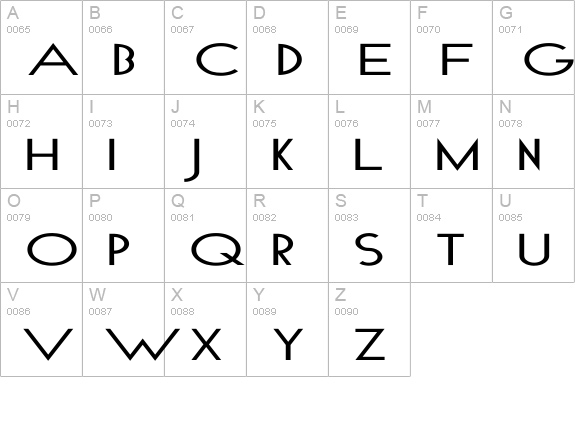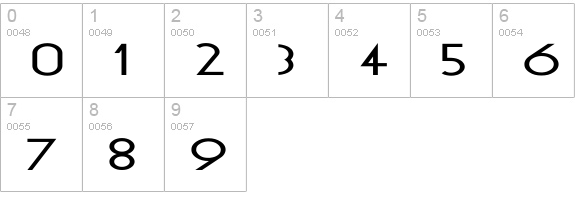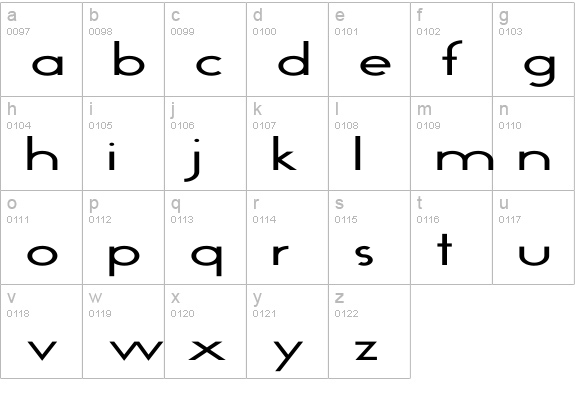
GeoPlain Ex Font Details
GeoPlain Ex is a modern and versatile sans-serif font that is perfect for a wide range of design projects. With its clean lines and geometric shapes, this font exudes a sense of professionalism and sophistication. Its bold and easy-to-read characters make it ideal for headlines, branding, and other display purposes. GeoPlain Ex is available in a variety of weights and styles, giving you plenty of options to choose from. The best part? GeoPlain Ex is completely free to download at FontsMarket.com. This means you can access this high-quality font without having to spend a dime. Whether you're a designer looking to expand your font library or just someone in need of a stylish and impactful typeface, GeoPlain Ex is the perfect choice. Download it today and elevate your designs with this sleek and modern font.